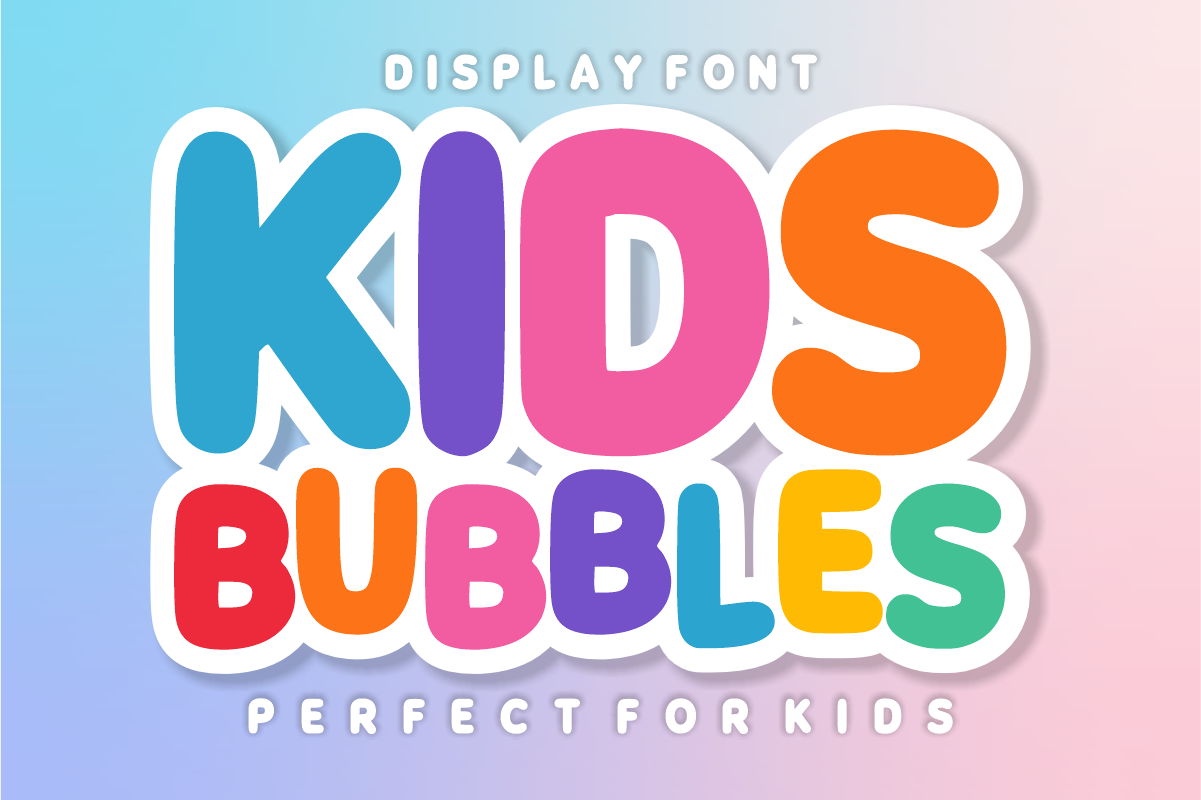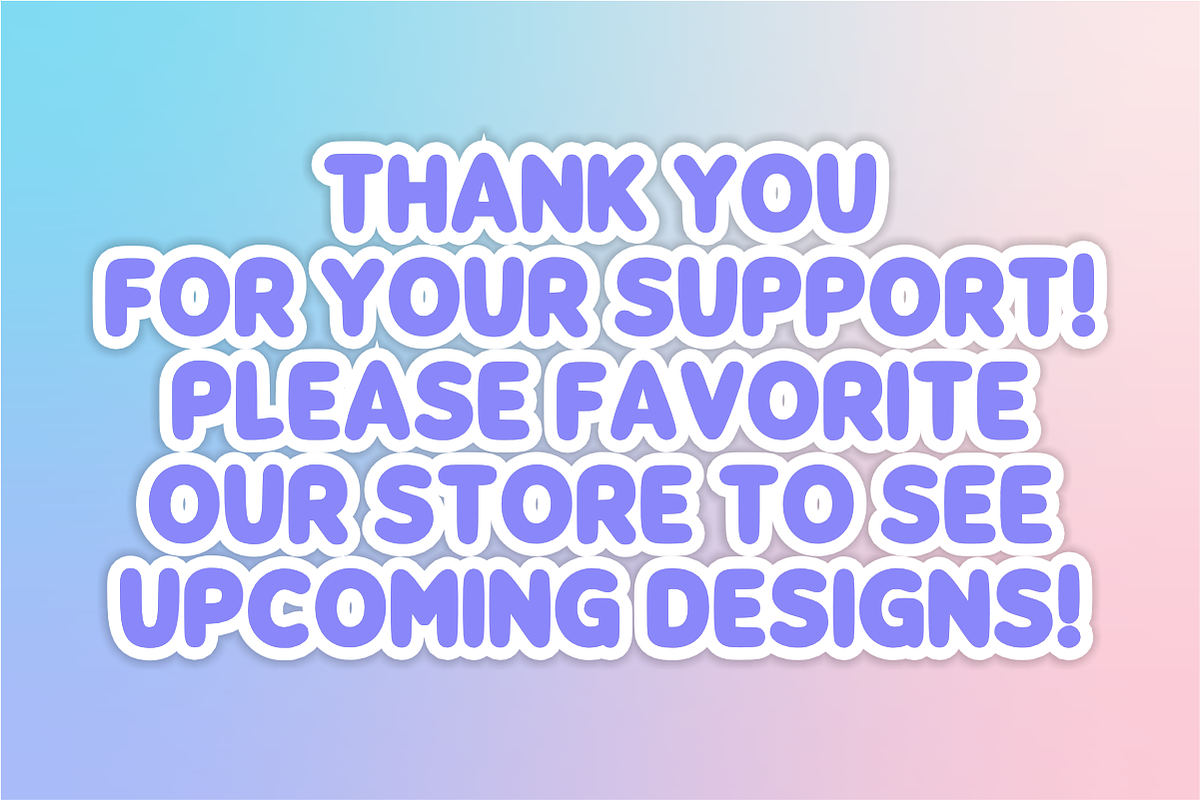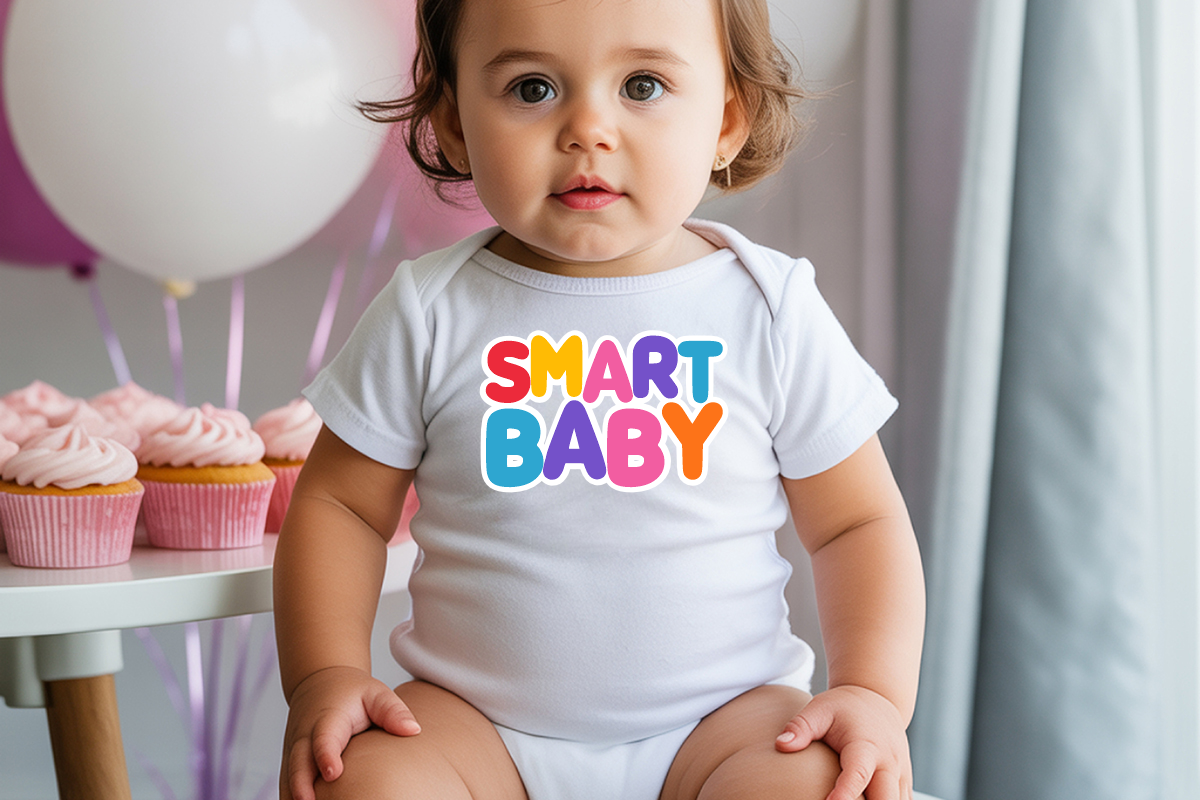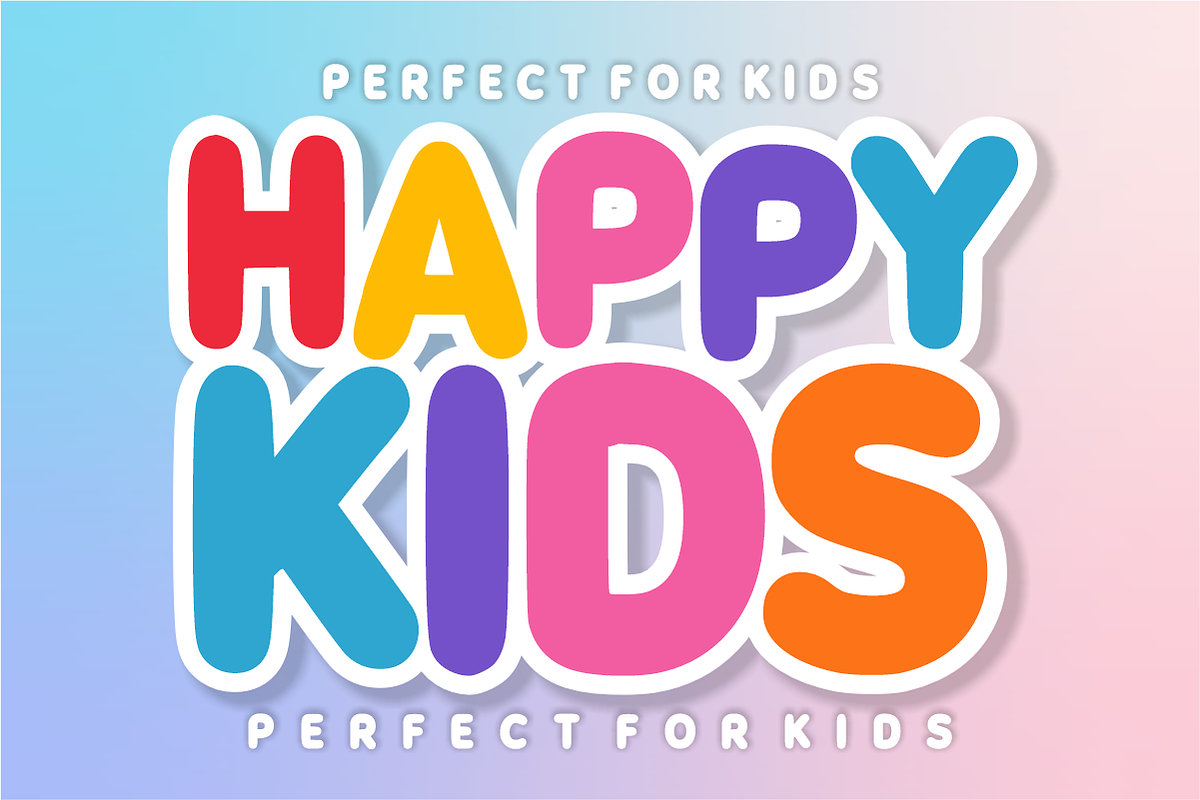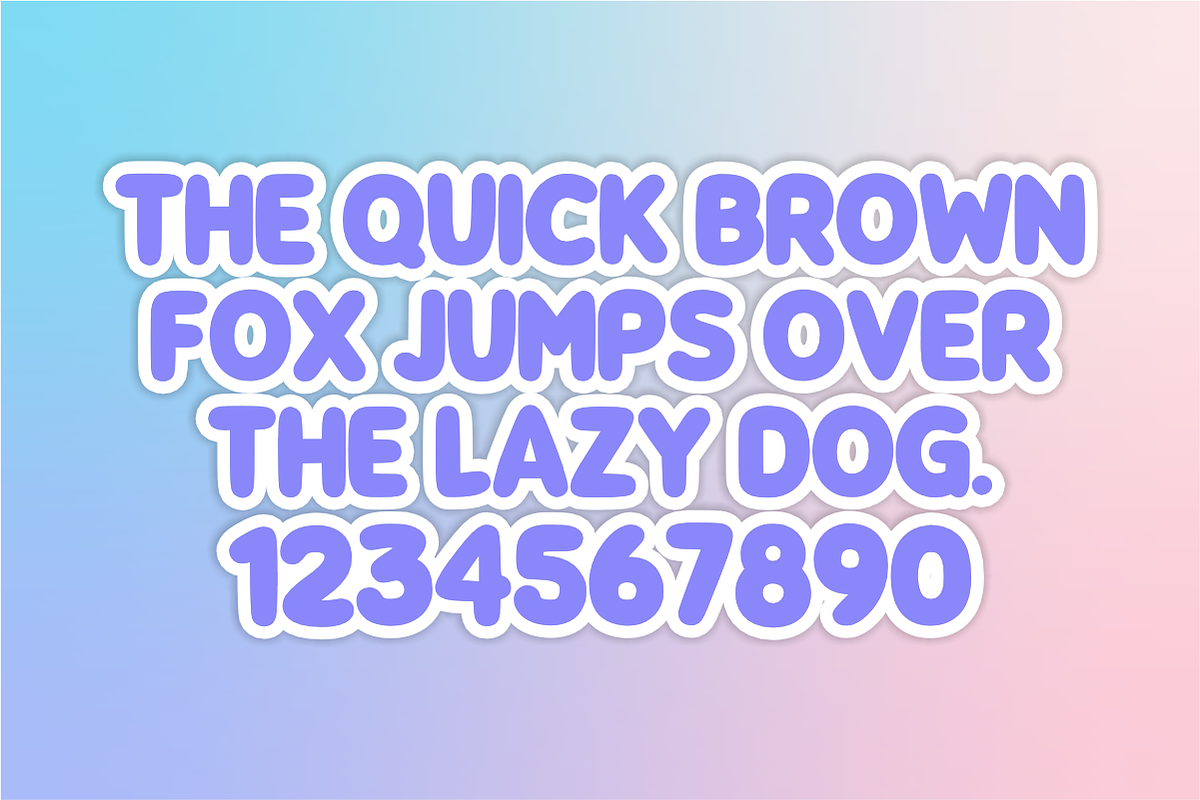
Kids Bubbles - Cute Bubble Font
Kids Bubbles is a bold, cheerful, and puffy bubble display font featuring smooth, rounded letterforms full of playful energy. Designed to bring instant joy and vibrant charm to children's designs, birthday party decor, and fun DIY crafts, this versatile font makes every word pop off the page. Every character is cleanly vectorized to guarantee high-resolution prints and smooth, effortless cutting on Cricut and Silhouette machines.
Uppercase Character Set
Numbers & Basic Punctuation
Ideal For:
Cricut, Silhouette, and HTV vinyl cutting projects for kids' t-shirts, party banners, tote bags, and custom craft items
Teachers Pay Teachers (TpT) authors creating fun classroom decor, learning games, student activity sheets, and reward tags
Etsy sellers designing birthday party invitations, custom kids' room decor, greeting cards, and personalized gifts
Print-on-Demand (POD) products, children's book titles, toy packaging, and cute lifestyle merchandise
Canva template creators making birthday flyers, kids' event banners, and colorful social media graphics
Custom die-cut sticker packs, planner decals, and digital scrapbooking layouts